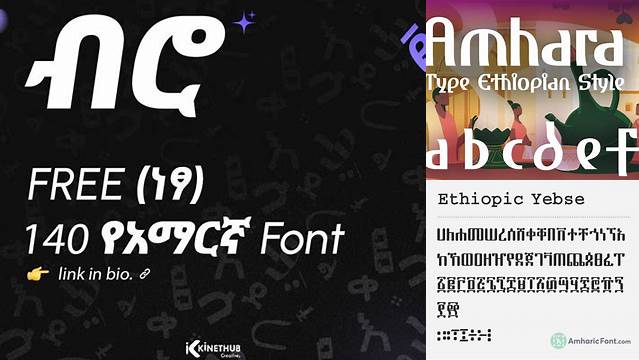
Hey guys! Are you on the hunt for some unique and creative Amharic fonts? You've come to the right place! Whether you're designing a poster, crafting a website, or just want to add a touch of Ethiopian flair to your projects, having the right font can make all the difference. In this article, we're diving deep into the world of Amharic fonts, exploring where you can find them for free, and how to use them to create visually stunning designs. So, let's jump right in and discover the beauty and versatility of these incredible typefaces!
1. Exploring the World of Amharic Typography
The world of Amharic typography is rich and fascinating, offering a unique visual aesthetic that's deeply rooted in Ethiopian culture. Amharic fonts are not just about characters; they're about conveying a history and a heritage. Understanding the nuances of Amharic script can greatly enhance your designs. The elegant curves and distinctive shapes of Amharic letters bring a certain sophistication and authenticity to any project. When you explore the vast landscape of Amharic typography, youâll find fonts that range from traditional and formal to modern and playful. This diversity allows designers to choose the perfect typeface for their specific needs, whether it's for a formal document, a creative poster, or a digital interface. The beauty of Amharic script lies in its intricate details and the stories it tells. Each character is a piece of art, reflecting centuries of linguistic and cultural evolution. By delving into this world, designers can discover fonts that not only look beautiful but also carry a profound cultural significance. The use of Amharic fonts in design adds a layer of depth and meaning that can resonate with audiences on a deeper level. This is especially important in projects that aim to connect with Ethiopian communities or celebrate Ethiopian heritage. The key to effective Amharic typography is to balance aesthetics with legibility. While the ornate characters can be visually striking, itâs crucial to ensure that the text remains easy to read. This requires careful consideration of font size, spacing, and contrast. Ultimately, exploring the world of Amharic typography is an enriching experience that can open up new creative possibilities. Itâs a journey into a script that is both ancient and contemporary, offering a wealth of inspiration for designers who are looking to create something truly special.
3. Understanding Amharic Script and Its Uniqueness
Amharic script is truly one-of-a-kind, guys! Itâs not just another alphabet; it's a writing system steeped in history and cultural significance. Understanding its unique characteristics can help you appreciate the beauty and complexity of Amharic fonts. The Amharic script, known as Fidel (áá°á), is an abugida, which means that each symbol represents a consonant-vowel combination. This is different from alphabets like the Latin script, where consonants and vowels are represented by separate letters. The Fidel system adds a fascinating layer of complexity to the script, as the shape of a character changes depending on the vowel sound it represents. One of the most striking features of Amharic script is its elegant and flowing forms. The characters often have intricate curves and loops, giving the script a visually appealing aesthetic. This artistic quality makes Amharic fonts a popular choice for designs that aim to convey sophistication and cultural richness. Another key aspect of the Amharic script is its directionality. Unlike Latin script, which is written from left to right, Amharic is written from left to right. This difference in writing direction can influence the layout and design of text, requiring designers to consider the flow and readability of the script in different contexts. The Amharic script also has a rich history, dating back to the ancient Ge'ez script, which is still used in the Ethiopian Orthodox Church. This historical connection gives Amharic fonts a sense of heritage and tradition. When you use Amharic fonts in your designs, you are not just using a typeface; you are also connecting with a long and vibrant cultural legacy. To truly understand the uniqueness of Amharic script, itâs helpful to delve into its phonetic structure. The script includes a wide range of sounds, including consonants and vowels that may not exist in other languages. This phonetic diversity is reflected in the characters themselves, with each symbol carefully crafted to represent a specific sound. Understanding these nuances can help you choose Amharic fonts that are not only visually appealing but also phonetically accurate. Ultimately, appreciating the uniqueness of Amharic script is about recognizing its cultural and linguistic significance. Itâs a writing system that embodies the history and identity of Ethiopia, and its beauty and complexity make it a valuable asset for designers looking to create authentic and meaningful work. By understanding the intricacies of Amharic script, you can make informed choices about font selection and usage, ensuring that your designs resonate with their intended audience.
4. How to Choose the Right Amharic Font for Your Project
Choosing the right Amharic font for your project can feel like a big decision, but don't sweat it, guys! It's all about finding the font that best matches your project's tone and purpose. There are a few key factors to consider that can help you narrow down your options and make the perfect selection. First, think about the overall style and mood you want to convey. Amharic fonts, like any other typeface, come in a variety of styles, from traditional and formal to modern and casual. If you're designing a formal document or a project that requires a sense of authority, you might opt for a more classic and refined Amharic font. On the other hand, if you're creating a poster or a website with a more playful and contemporary vibe, a bolder and more stylized font might be a better choice. Another important factor to consider is legibility. While some Amharic fonts are incredibly ornate and visually striking, they may not be the most readable, especially in smaller sizes or for longer passages of text. Itâs crucial to choose a font that is both aesthetically pleasing and easy to read. This requires paying attention to the spacing between characters, the thickness of the strokes, and the overall clarity of the letterforms. Think about the context in which the font will be used. Will it be displayed on a screen, printed on paper, or used in a logo? Different mediums may require different font characteristics. For example, a font that looks great on a computer screen may not translate well to print, and vice versa. If you're designing for the web, you'll also need to consider font loading times and browser compatibility. The target audience of your project is another key consideration. If you're designing for an Ethiopian audience, for example, you'll want to choose Amharic fonts that resonate with their cultural sensibilities. This might mean opting for a more traditional style or incorporating elements that reflect Ethiopian heritage. Experiment with different Amharic fonts and see how they look in your design. Try out different font sizes, weights, and styles. See how the font looks in headlines versus body text. This hands-on approach can help you get a better feel for the font and how it works in practice. Ultimately, the best way to choose the right Amharic font is to trust your instincts and select the one that you feel best represents your project. With a little bit of research and experimentation, youâll be able to find the perfect typeface to bring your creative vision to life.
6. Using Amharic Fonts in Graphic Design Projects
Okay, guys, let's get creative! You've got your Amharic fonts installed, now it's time to put them to work in your graphic design projects. Whether you're designing a poster, a logo, or a website, Amharic fonts can add a unique and culturally rich touch to your work. The key to effectively using Amharic fonts in graphic design is to consider the overall message and aesthetic you want to convey. Amharic fonts can be used to create a wide range of moods and styles, from traditional and formal to modern and playful. Think about the target audience for your design and choose a font that resonates with them. If you're designing for an Ethiopian audience, using authentic Amharic fonts can help you connect with them on a deeper level. When designing posters, Amharic fonts can be used to create eye-catching headlines and subheadings. The unique shapes and curves of the Amharic script can make your posters stand out from the crowd. Experiment with different font sizes, weights, and colors to create visual interest. For logo design, Amharic fonts can add a touch of cultural heritage to your brand identity. A well-chosen Amharic font can help communicate the values and history of your company. Consider using Amharic fonts in combination with Latin fonts to create a balanced and visually appealing logo. In web design, Amharic fonts can be used to create a unique and engaging user experience. Use Amharic fonts in headings, navigation menus, and body text to add a touch of Ethiopian flair to your website. Be sure to optimize your fonts for web use to ensure that they load quickly and display correctly on different devices. When using Amharic fonts in graphic design, itâs important to pay attention to legibility. While the ornate characters of the Amharic script can be visually striking, itâs crucial to ensure that your text remains easy to read. Choose a font size and weight that is appropriate for the context, and pay attention to the spacing between characters and lines. Donât be afraid to experiment with different Amharic fonts and see how they look in your designs. Try out different font combinations and see what works best for your project. You might be surprised at the creative possibilities that Amharic fonts can offer. Ultimately, using Amharic fonts in graphic design is about celebrating the beauty and diversity of the Amharic script. By incorporating these fonts into your work, you can add a touch of cultural richness and create designs that are both visually stunning and meaningful.